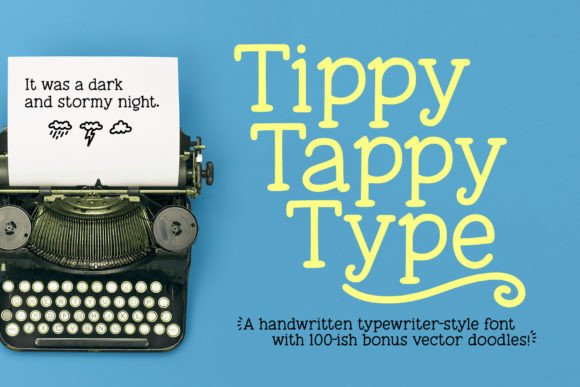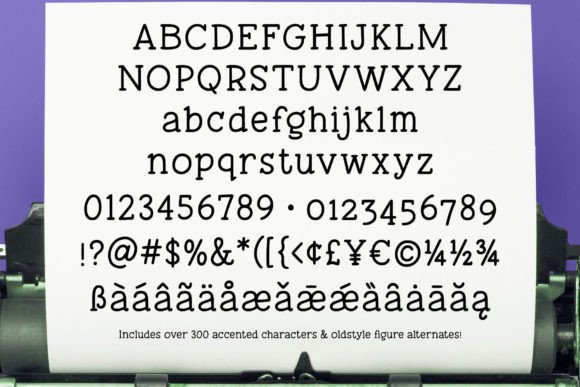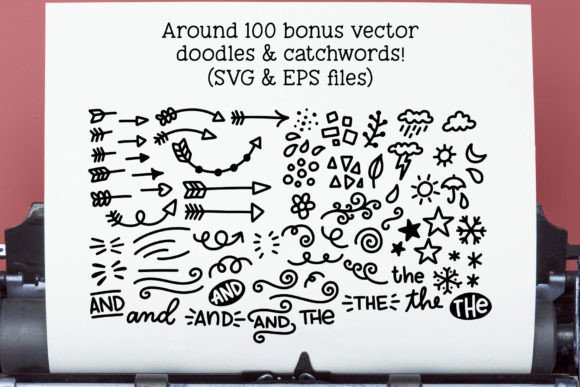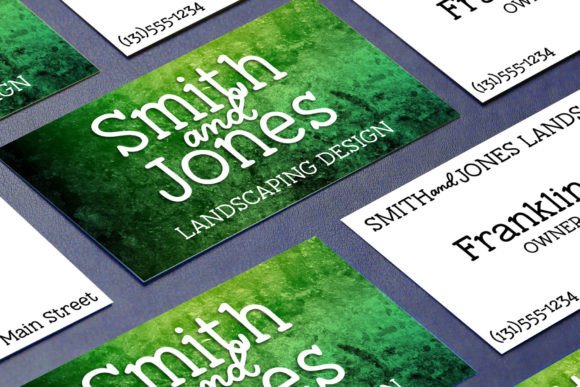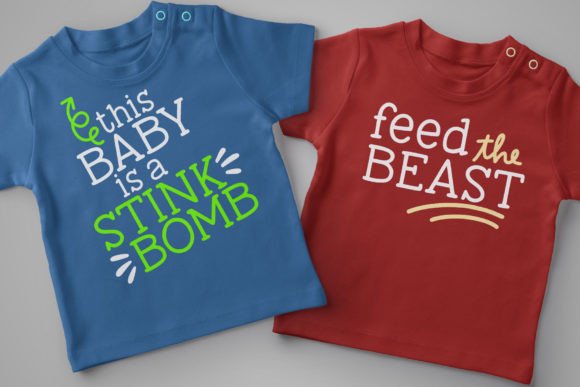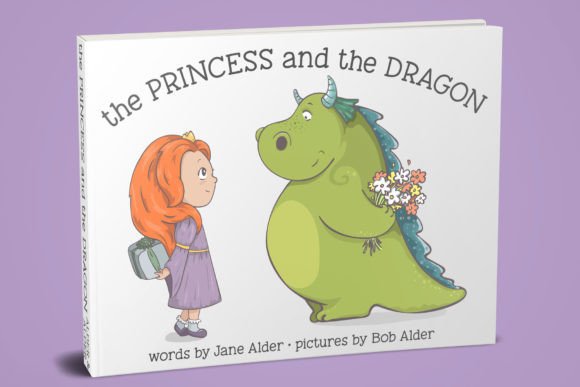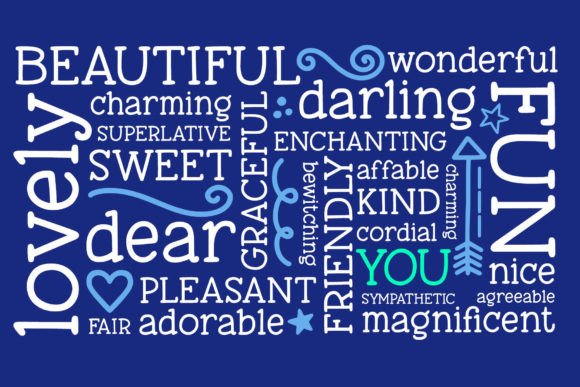
Tippy Tappy Type
Tippy Tappy Type: A Charming Typewriter-Inspired Font
Tippy Tappy Type is a delightful typewriter-inspired font with a playful name and unique backstory. Drawn entirely by hand and then refined for both printing and cutting, this font captures the essence of “tippy tappy typing” – using just the index fingers to type, as one might on a phone.
Key Features of Tippy Tappy Type
• Typewriter-ish Design: Offers a nostalgic, hand-drawn typewriter feel.
• Extensive Character Set: Features basic and extended Latin characters for wide language support.
• Bonus Vector Doodles: Comes with nearly 100 additional design elements.
• Basic character set: A-Z, a-z, 0-9, and punctuation
• Over 300 extended Latin characters for Western and some Eastern European languages
• Alternate oldstyle figures
Best Uses for Tippy Tappy Type
Tippy Tappy Type’s unique characteristics make it particularly well-suited for:
When using Tippy Tappy Type in your designs, consider these tips:
• Combine with the bonus doodles for a complete hand-drawn aesthetic.
• Use for headlines or short text to showcase its typewriter-inspired style.
• Experiment with the oldstyle figures for a vintage number look.
• Try it in both print and cut-out designs to utilize its versatility.
To sum up, Tippy Tappy Type is a charming choice for designers seeking a hand-drawn, typewriter-inspired font with a playful twist. Its unique backstory and extensive character set, combined with bonus vector doodles, make it a versatile tool for various creative projects. Whether you’re designing nostalgic branding materials, creating quirky social media content, or crafting handmade-style graphics, Tippy Tappy Type offers the perfect blend of whimsy and functionality.
Moreover, Tippy Tappy Type’s distinctive design allows it to shine in contexts where a personal, handcrafted touch is desired. From greeting cards to blog headers, this font can elevate your projects with its unique style. Also, its compatibility with both printing and cutting applications ensures versatility across different design mediums.
In conclusion, Tippy Tappy Type truly captures the essence of playful, hand-drawn typography with a typewriter twist. Its thoughtful design and extensive character set, along with bonus design elements, provide designers with a powerful toolkit for creating engaging and distinctive designs. For those wanting to add a touch of nostalgic charm to their work, Tippy Tappy Type can enhance themed creations with its unique style. Ultimately, it’s an ideal choice for designers aiming to make a fun, personal impact across a wide range of creative projects.